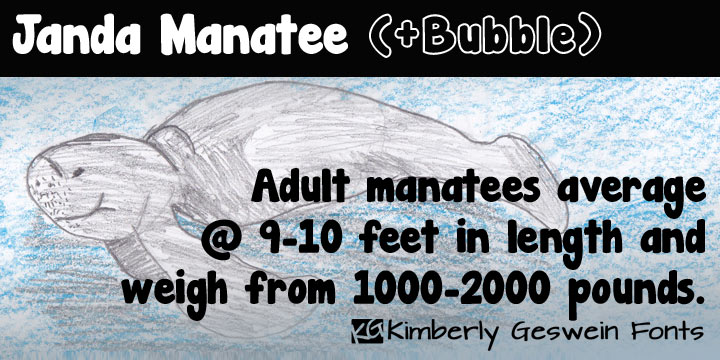
• Janda Manatee
This super chunky round, markered handwriting is very bubbly. The outline version is easy to fill with color.
Janda Manatee Solid
Janda Manatee Bubble